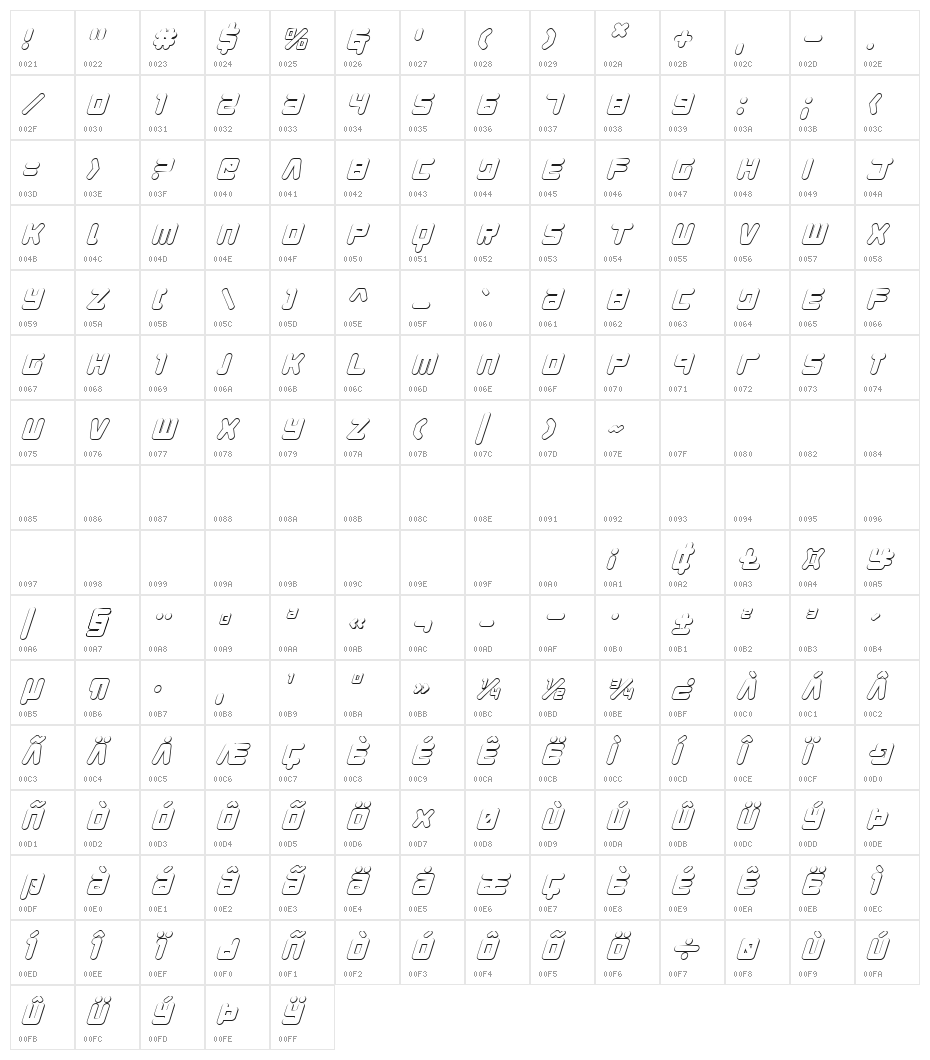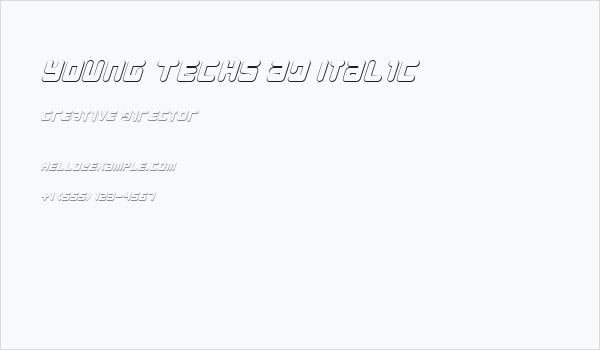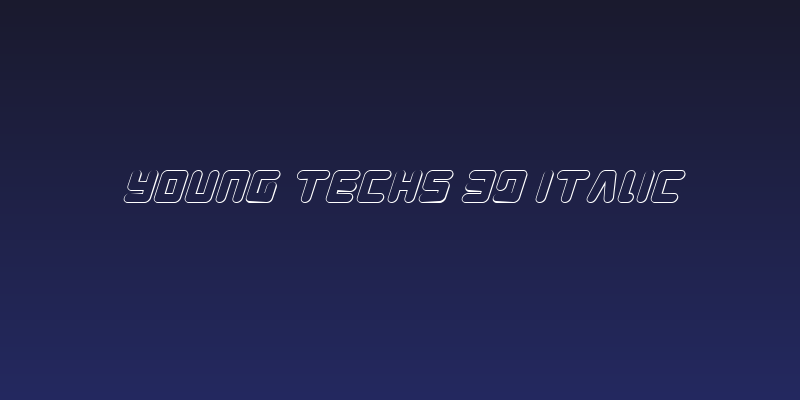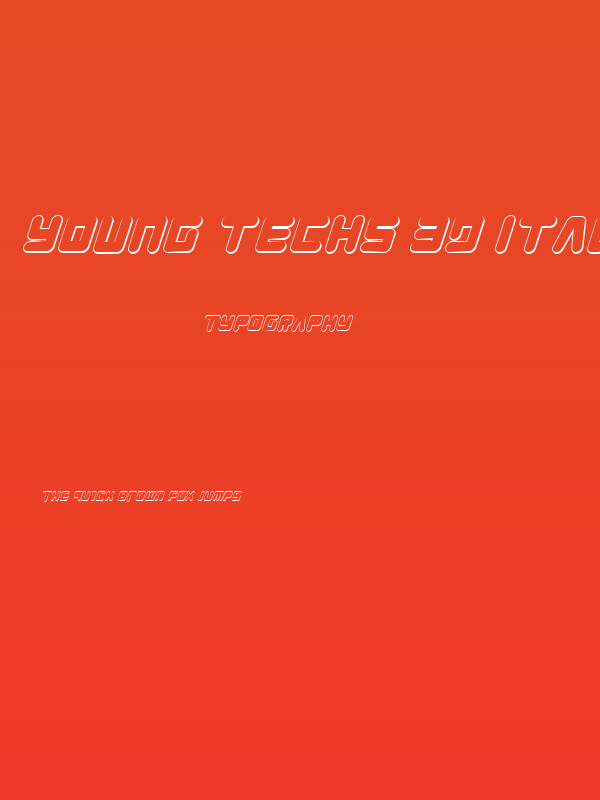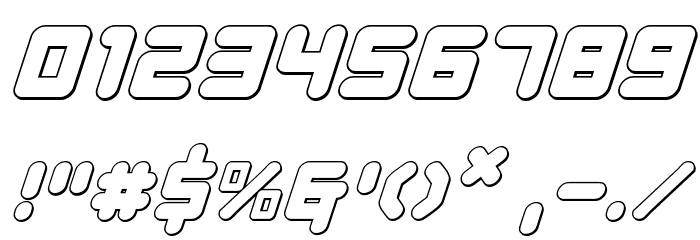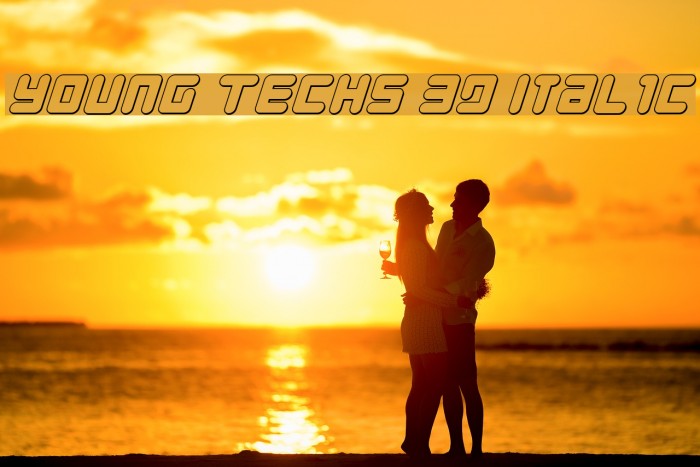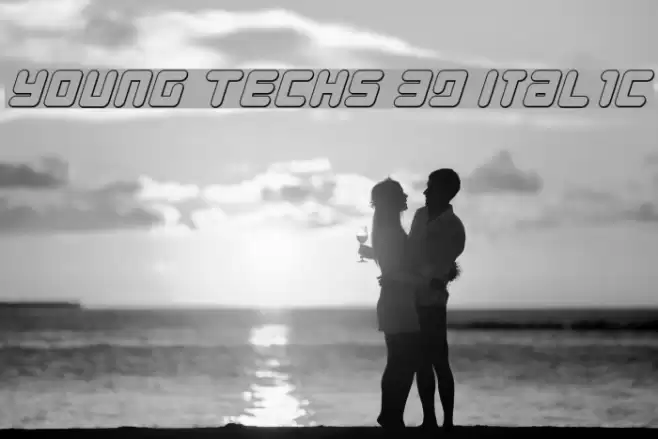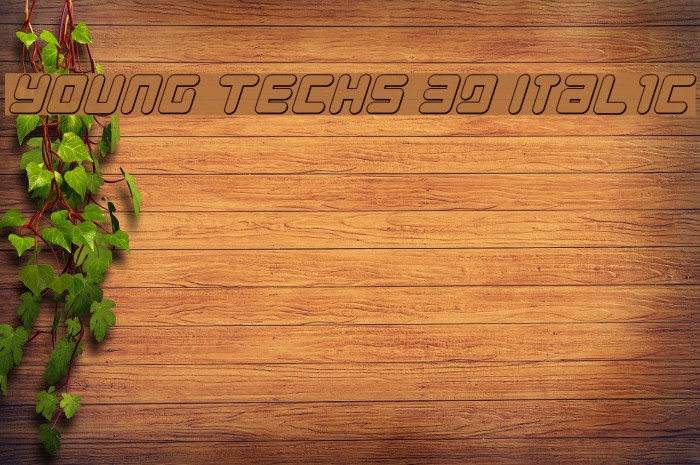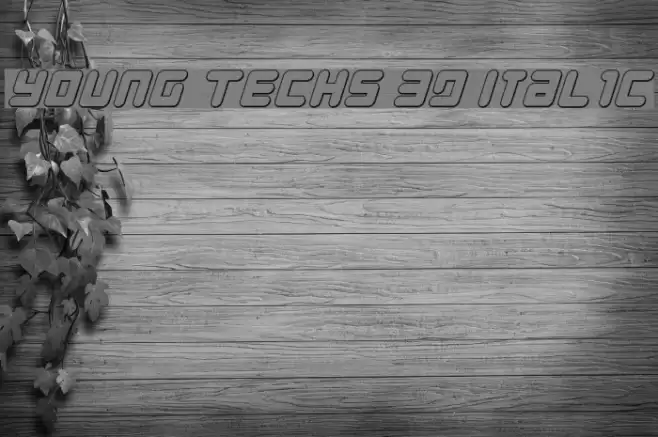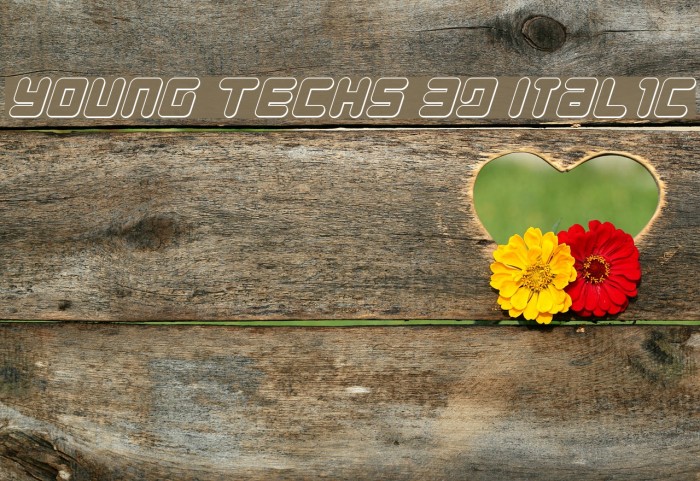
Young Techs 3D Italic Font
Young Techs 3D Italic Description
This font features a futuristic and dynamic design with a 3D italicized style. The characters are outlined, giving them a hollow appearance that enhances the modern and tech-inspired aesthetic. The letters have a rounded, geometric form with consistent stroke thickness, contributing to a cohesive and streamlined look. The font's italic slant adds a sense of motion and energy, making it suitable for projects that require a contemporary and innovative feel. The numerals and special characters maintain the same stylistic elements, ensuring uniformity across all text elements.
| Proposed Projects | Ideal for tech-related branding, video game titles, sci-fi posters, and digital interfaces. |